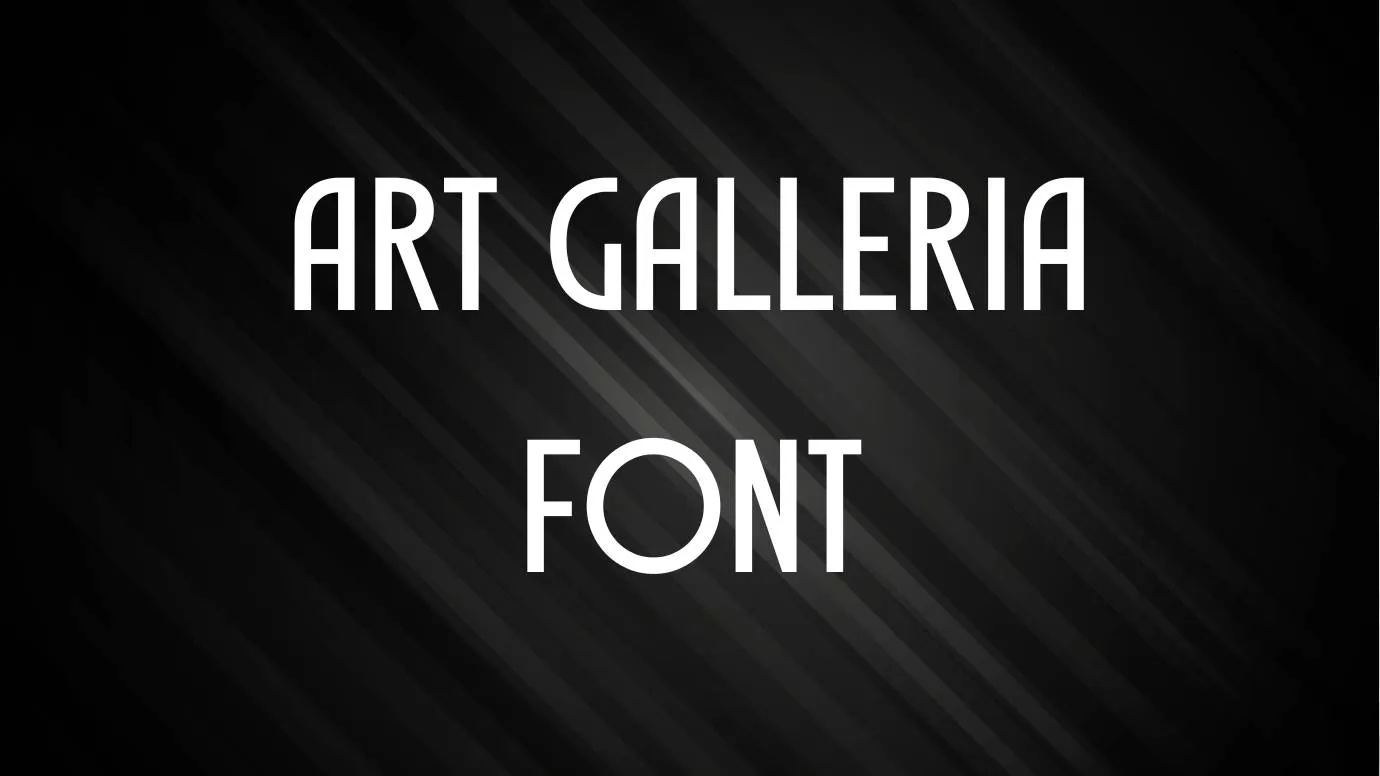
Art Galleria Font Family is a stylish sans serif font that has attractive ligature and alternates. It was designed and shared by Sensatype which is a famous foundry. This amazing texture has OTF and TTF formats that are suitable for different software.
It comes with more than 100 glyphs along with 2048 units per em. This stylish font has a lot of unique features in its free version. This font is also great for making pairing with good times font that you can choose for personal designing purposes.
Art Galleria Font